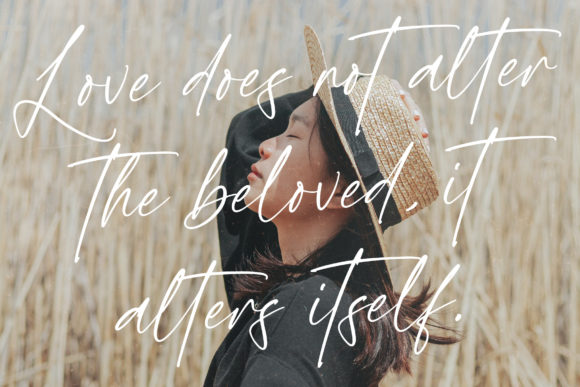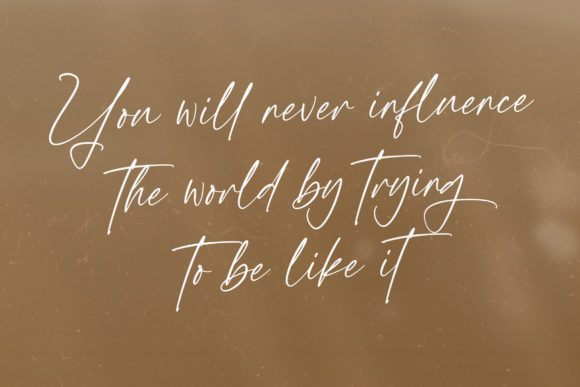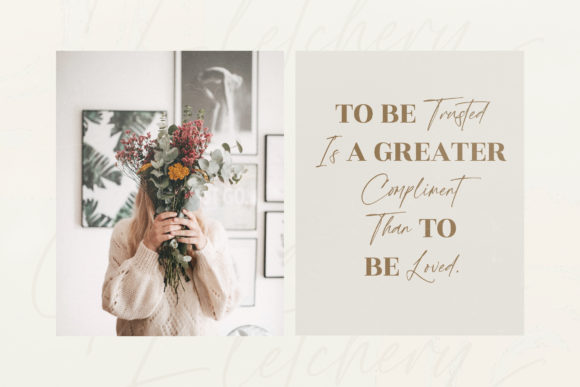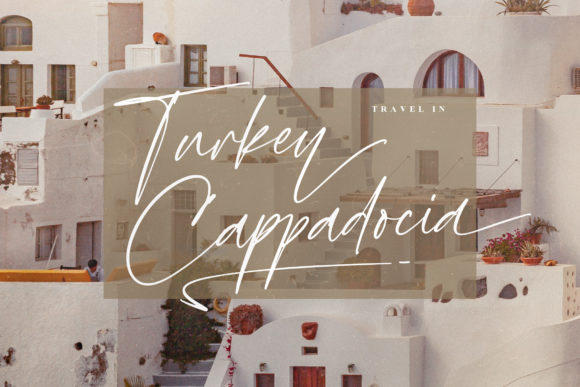
Introduction to Gerald Fletchery Font
Have you ever stared at a blank page, trying to conjure up the perfect font to match your creative vision? It’s a feeling many designers know all too well. But what if I told you that the perfect font is just a click away? Enter the elegant and flowing Gerald Fletchery Font, a true gem for any design project.
As a designer, you know that having access to high-quality fonts can make all the difference in bringing your creative project to life. And that’s exactly what Gerald Fletchery Font offers – a beautiful and well-balanced handwritten font that’s perfect for a wide range of designs. Plus, with PUA encoding, you can access all of the glyphs and swashes with ease, making it a valuable resource for any design enthusiast.
Key Features of Gerald Fletchery Font
- High-quality font design, perfect for creative projects requiring a unique touch
- Designed with a modern aesthetic, suitable for a wide range of creative projects
- Unique characteristics include bold lines and subtle texture, adding depth to any design
Honest Review: Gerald Fletchery Font
I recently came across the Gerald Fletchery Font and was excited to give it a try in my current creative project. The first thing that caught my attention was the sleek and modern design of the font.
- ✨ High quality: The font is crisp and clear, making it perfect for print and digital use.
However, I did encounter a few limitations while using the font:
- ⚠️ Limited font styles: While the font itself is beautiful, I found that the available font styles were a bit limited, which might not be suitable for more complex designs.
- ⚠️ No bold or italic options: I had to get creative with the font to achieve the desired look in my design, which took some extra time.
Overall, I’m impressed with the Gerald Fletchery Font and would definitely recommend it for simple to medium-complexity designs. While it may have some limitations, it’s a high-quality design resource that’s perfect for designers on a budget.
Tips for Getting the Most Out of Gerald Fletchery Font
For a transparent background, use the font on a light-colored background to achieve a clean and minimalist look. This font is ideal for creative projects requiring a unique and eye-catching design element.
Common Use Cases for Gerald Fletchery Font
Gerald Fletchery Font is commonly used in design projects requiring a high-quality, unique font, such as logos, posters, and brochures. Its versatility makes it an excellent design resource for various creative projects.